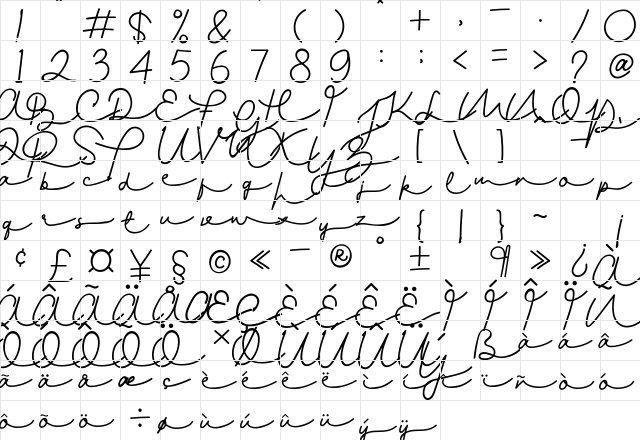
Gladys Script Regular
| Designer | Astrotype Std. 2019 |
Design Context for Gladys Script Typeface
Gladys Script brings a calligraphic fluidity to the page — its connecting strokes and expressive curves give it an unmistakably human quality.